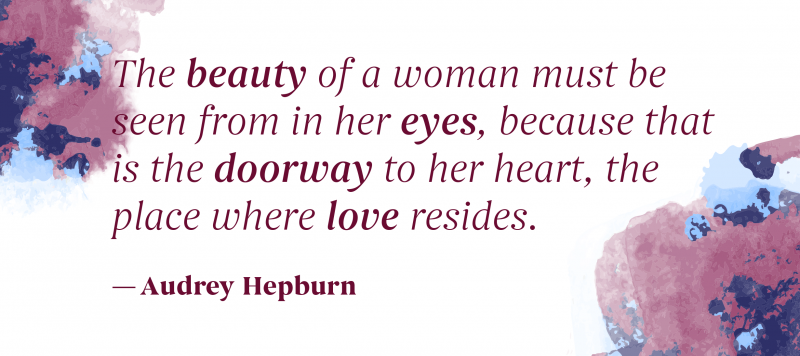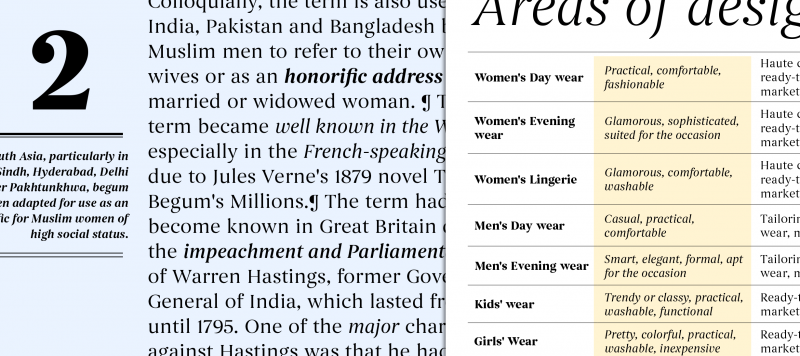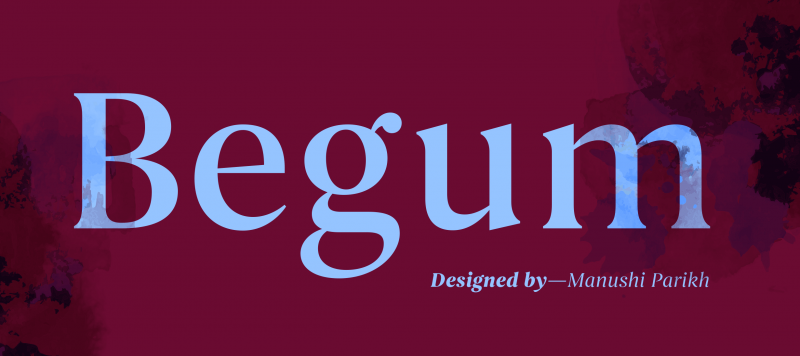
Begum is a Latin display serif typeface with contrast. With an ultra-contemporary appearance, its characters share DNA with classic Anglo-Dutch types like Caslon, Fleischmann or Times. The family shines in shorter-length texts, multi-line article introductions, and even on packaging. Begum is part of a larger family that supports Devanagari and Tamil scripts, too.
Family Name Begum
Designer(s) Manushi Parikh
Classification Serif, Display